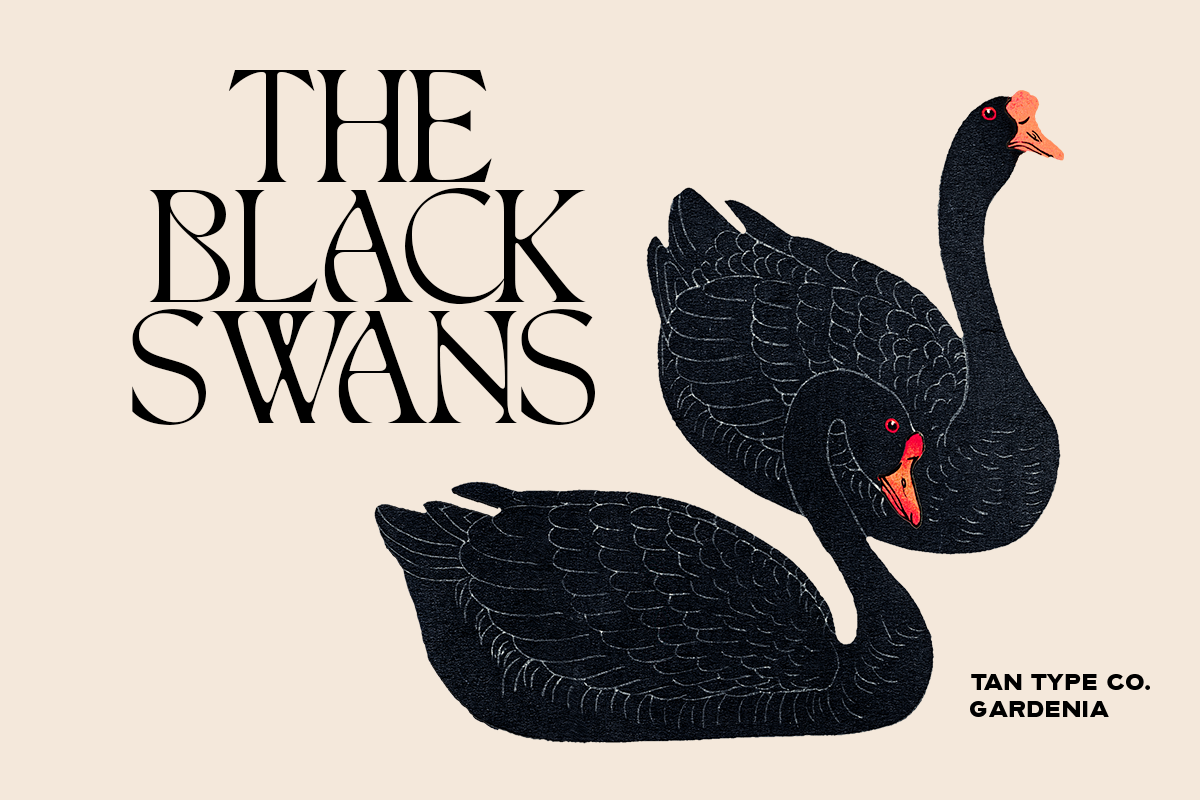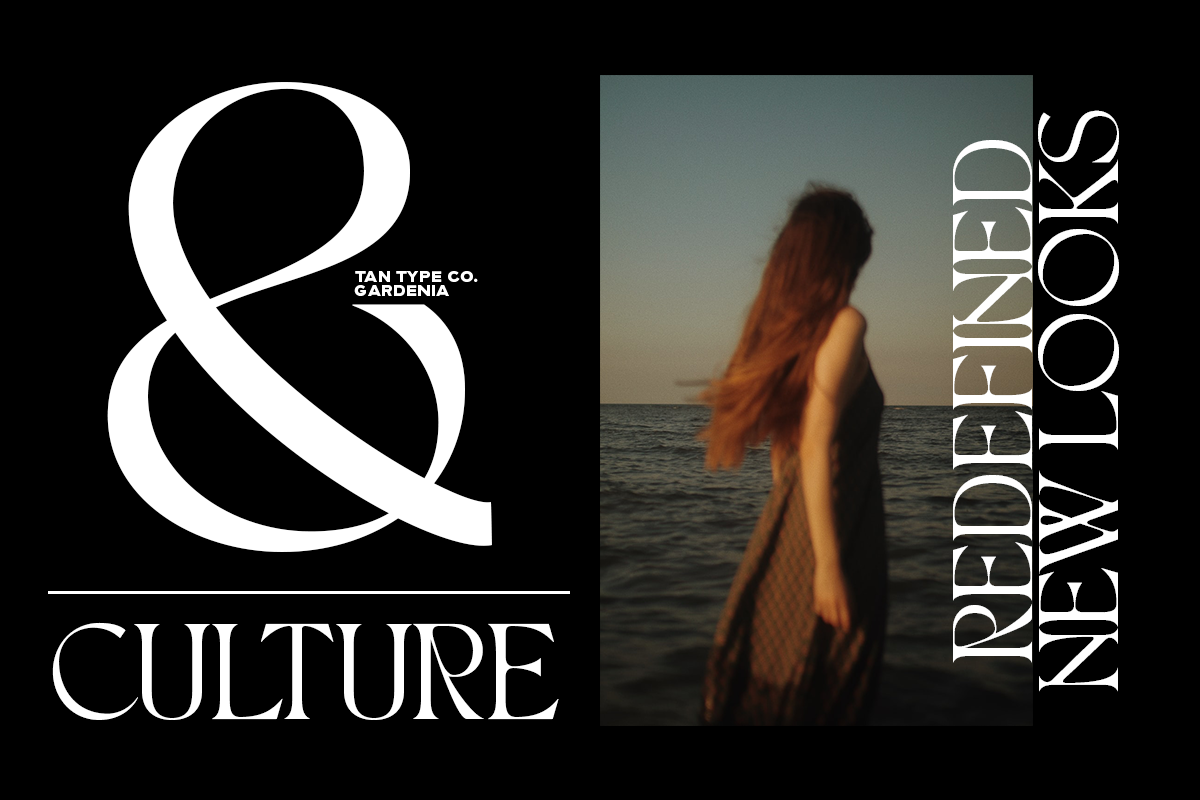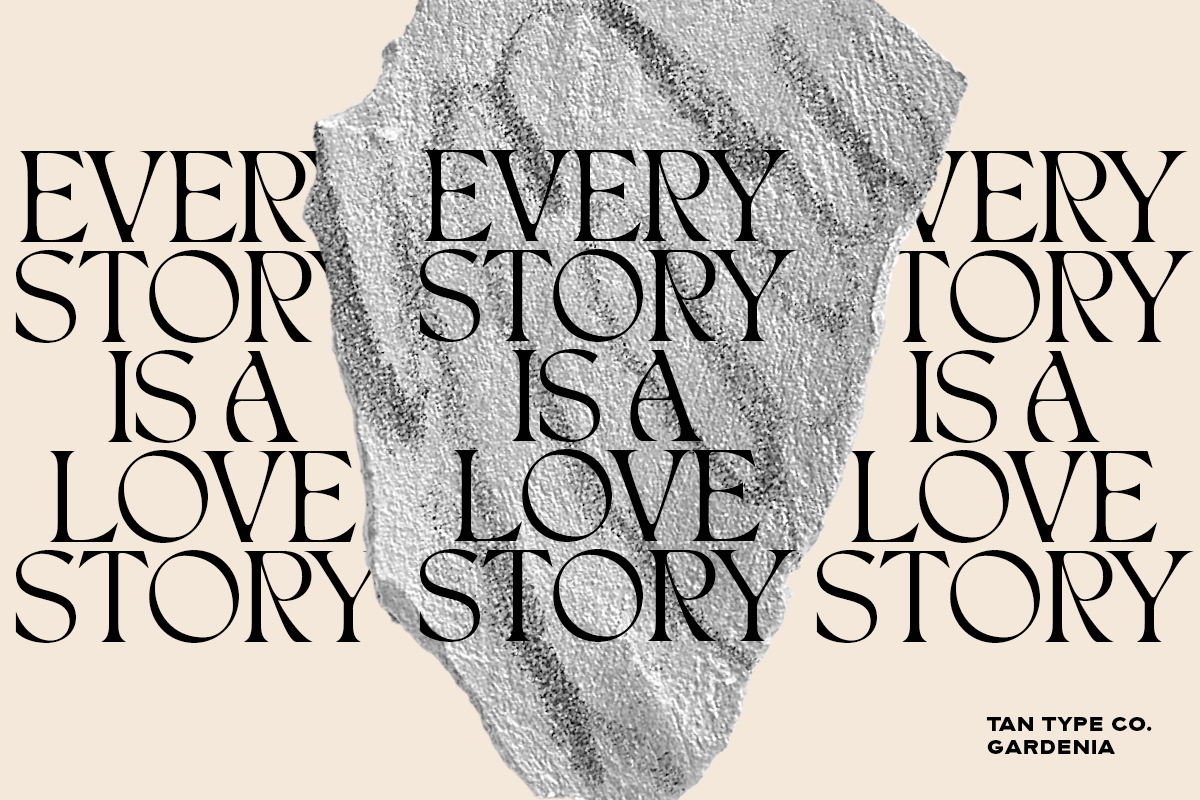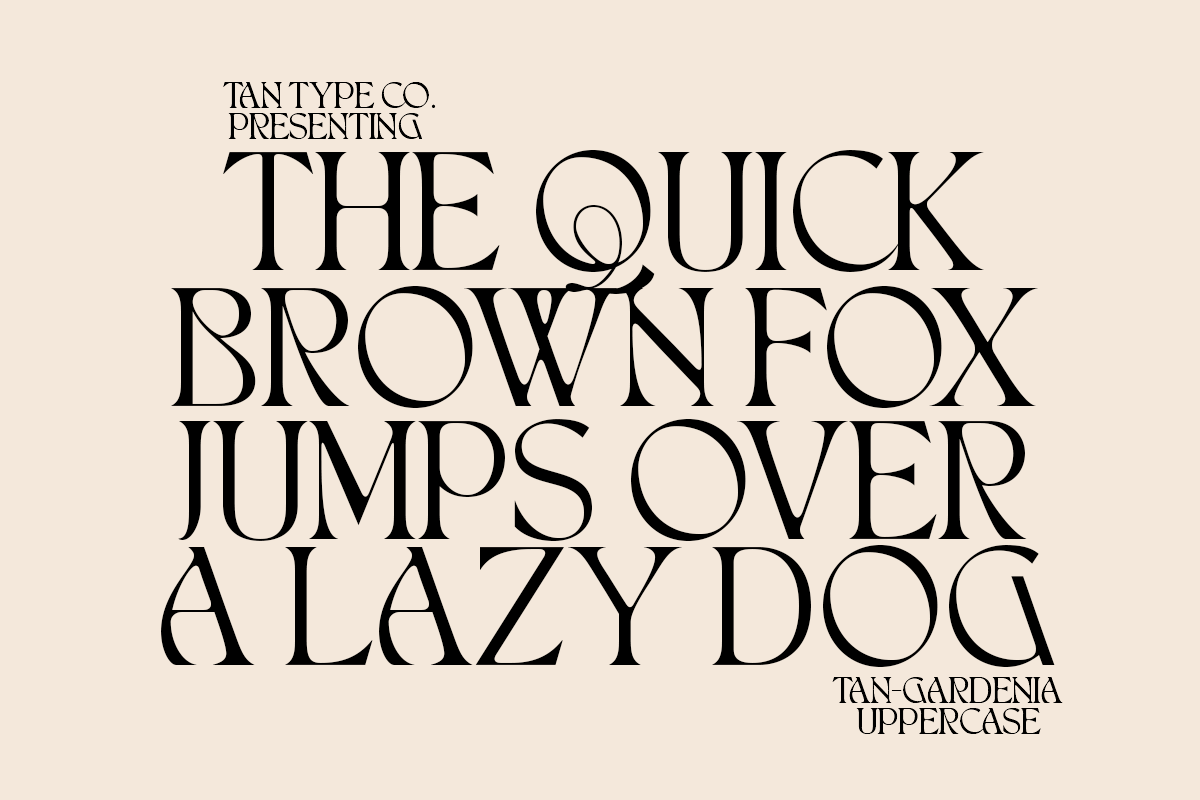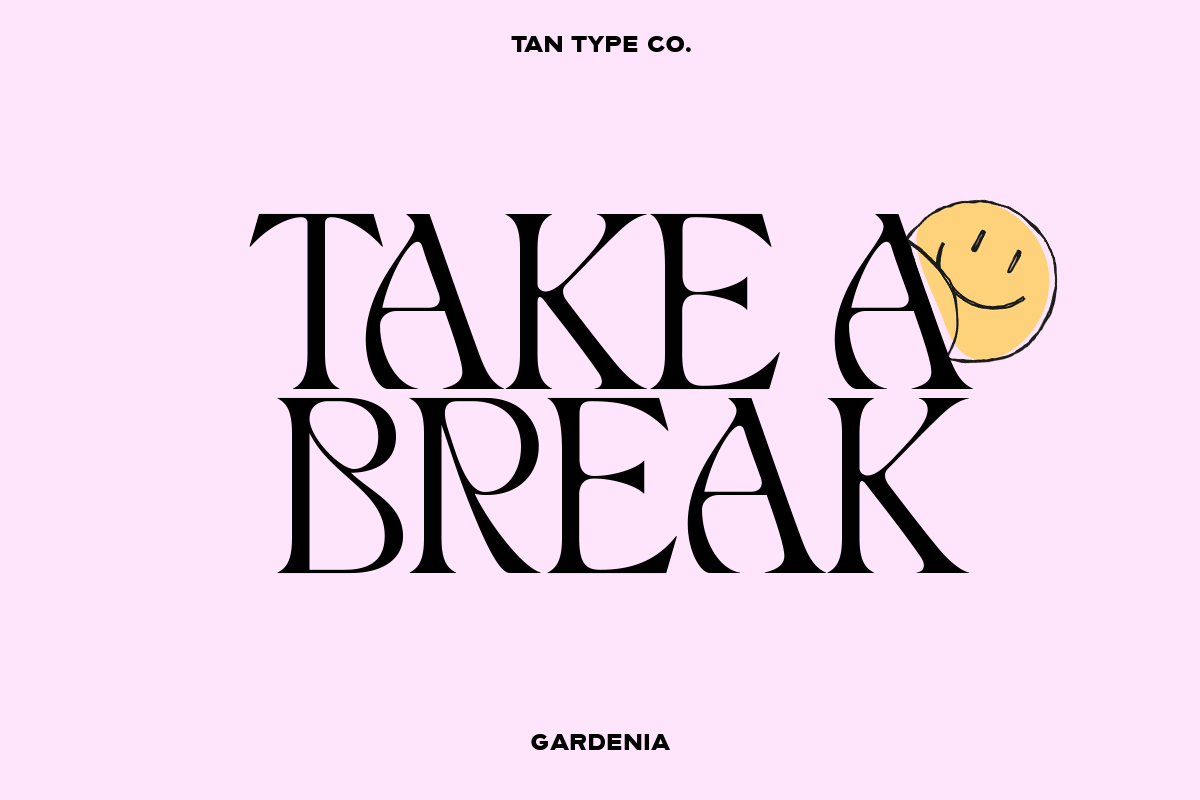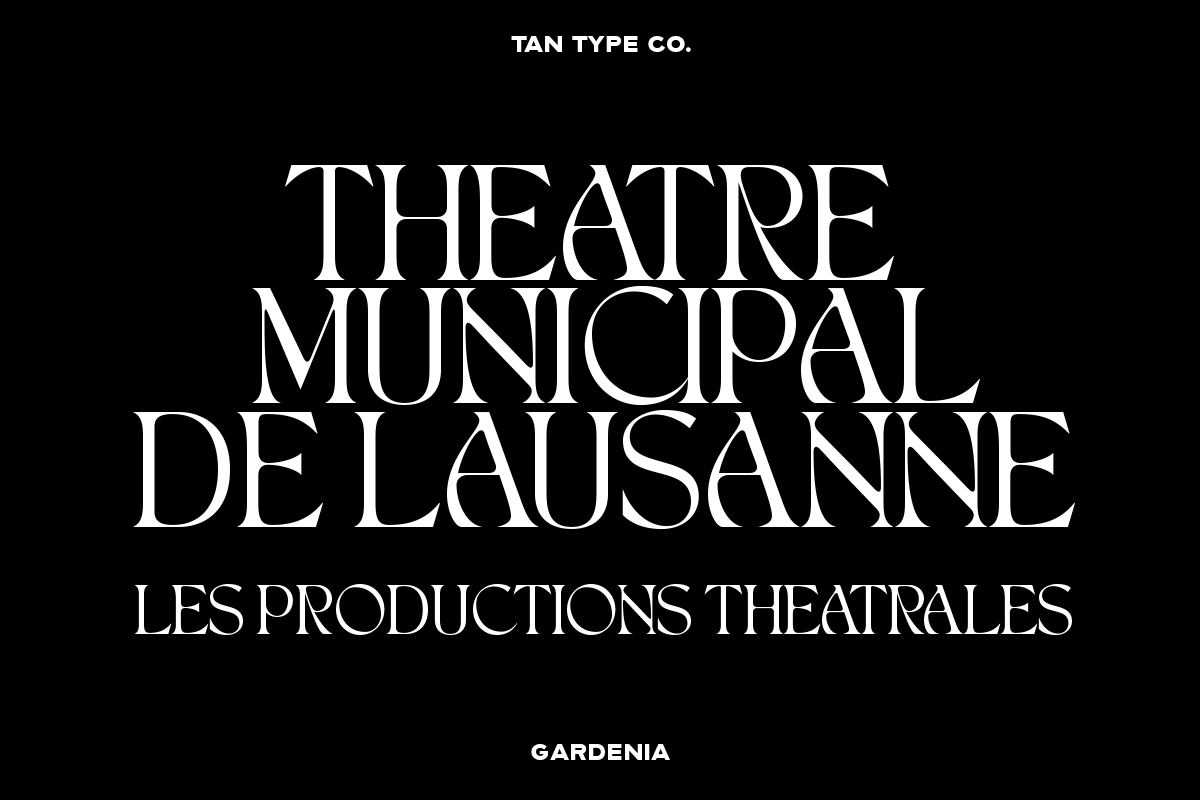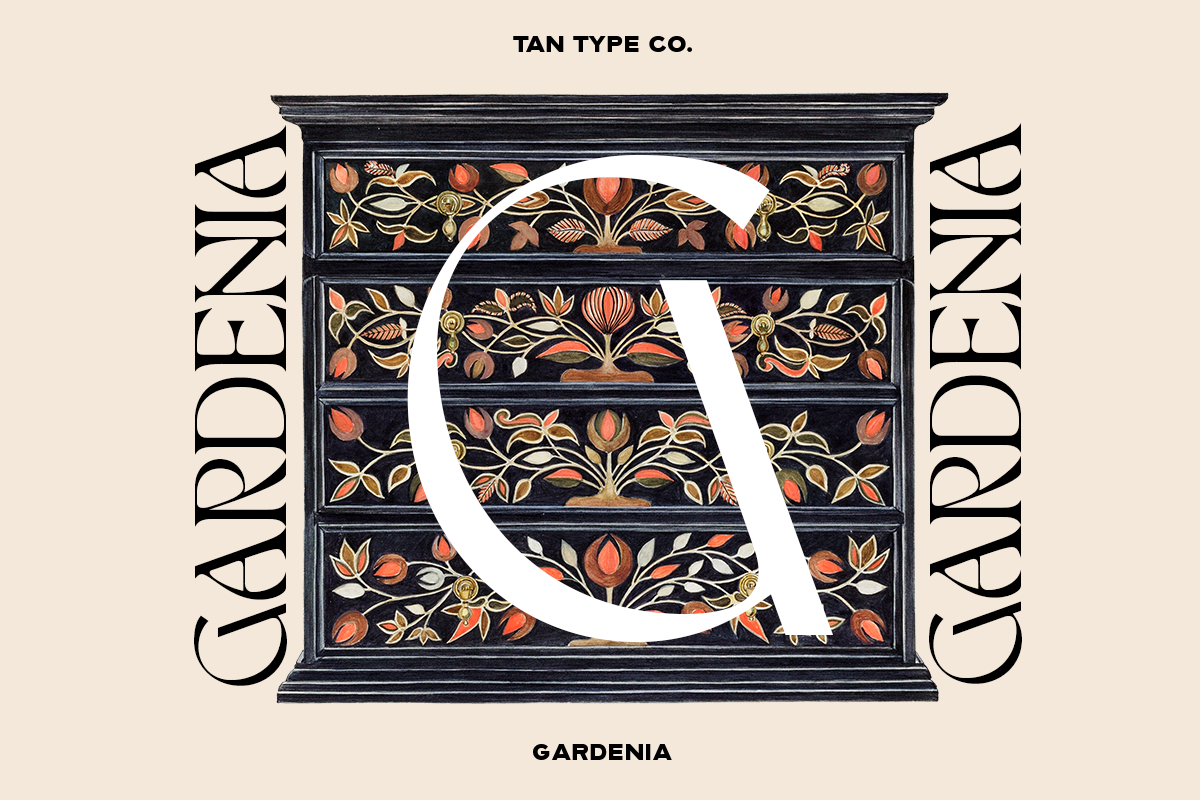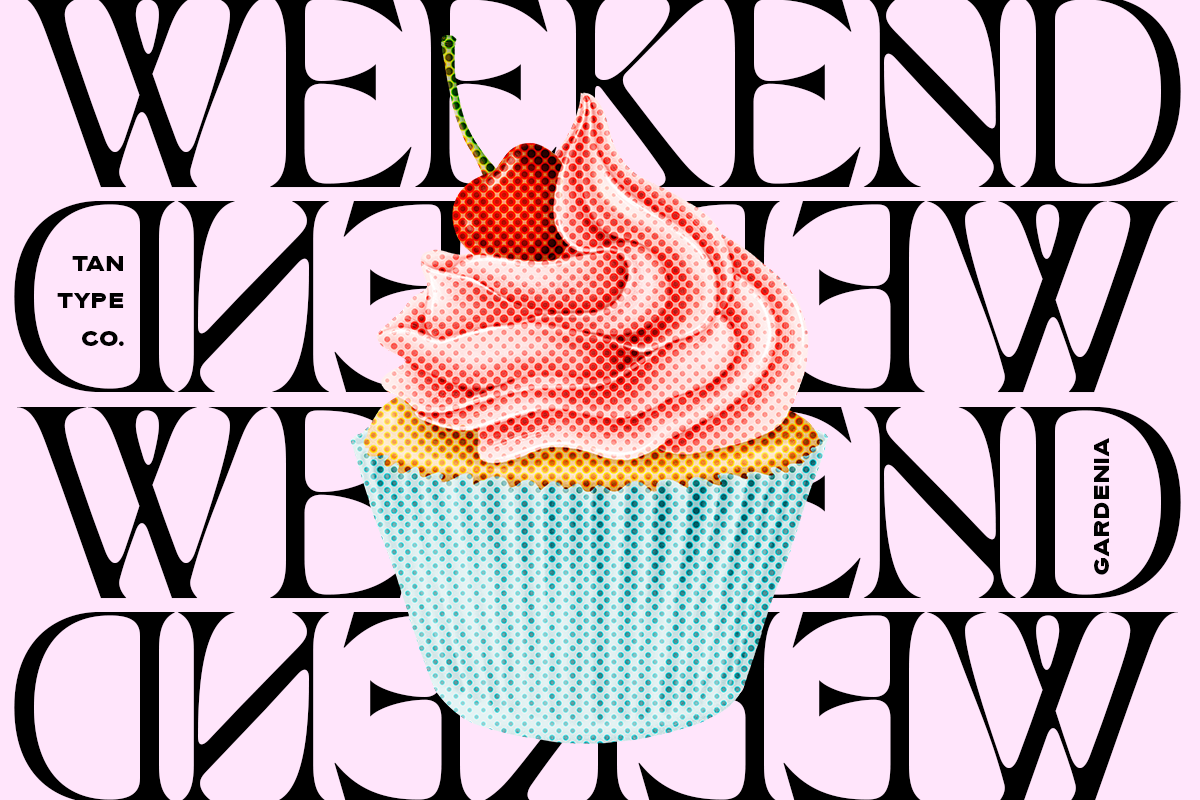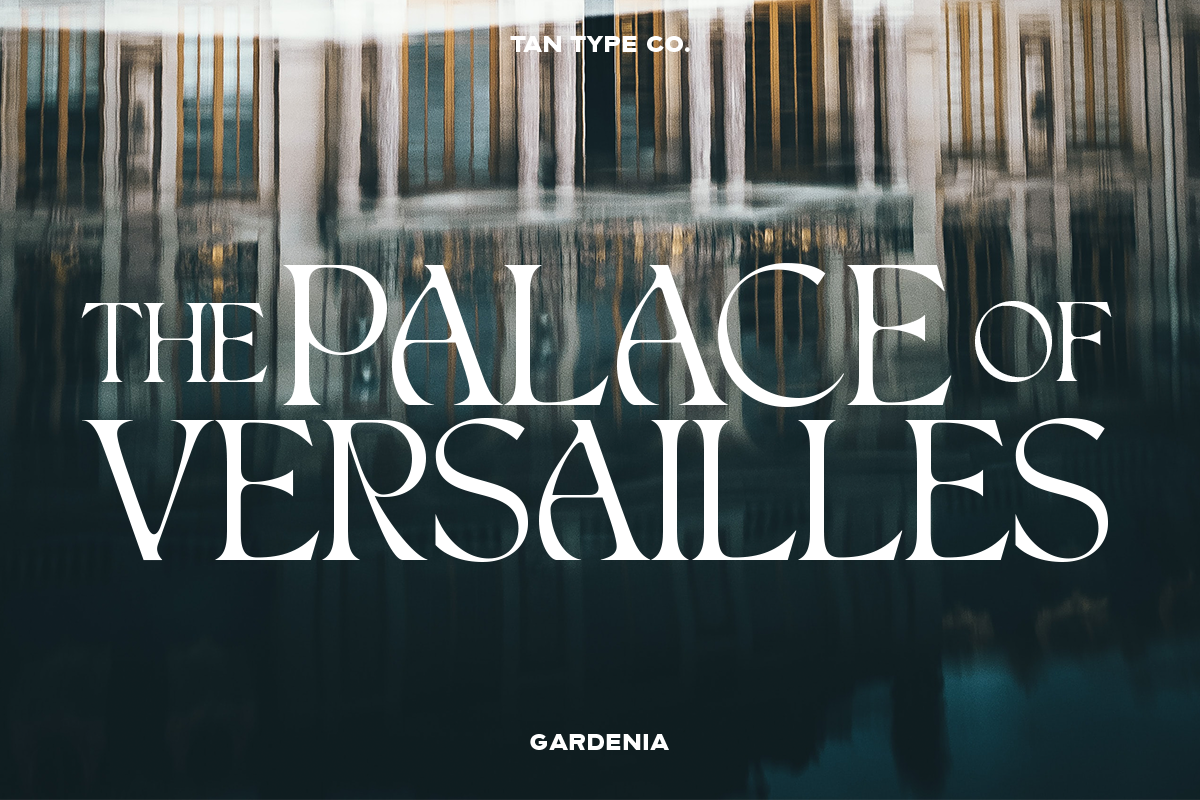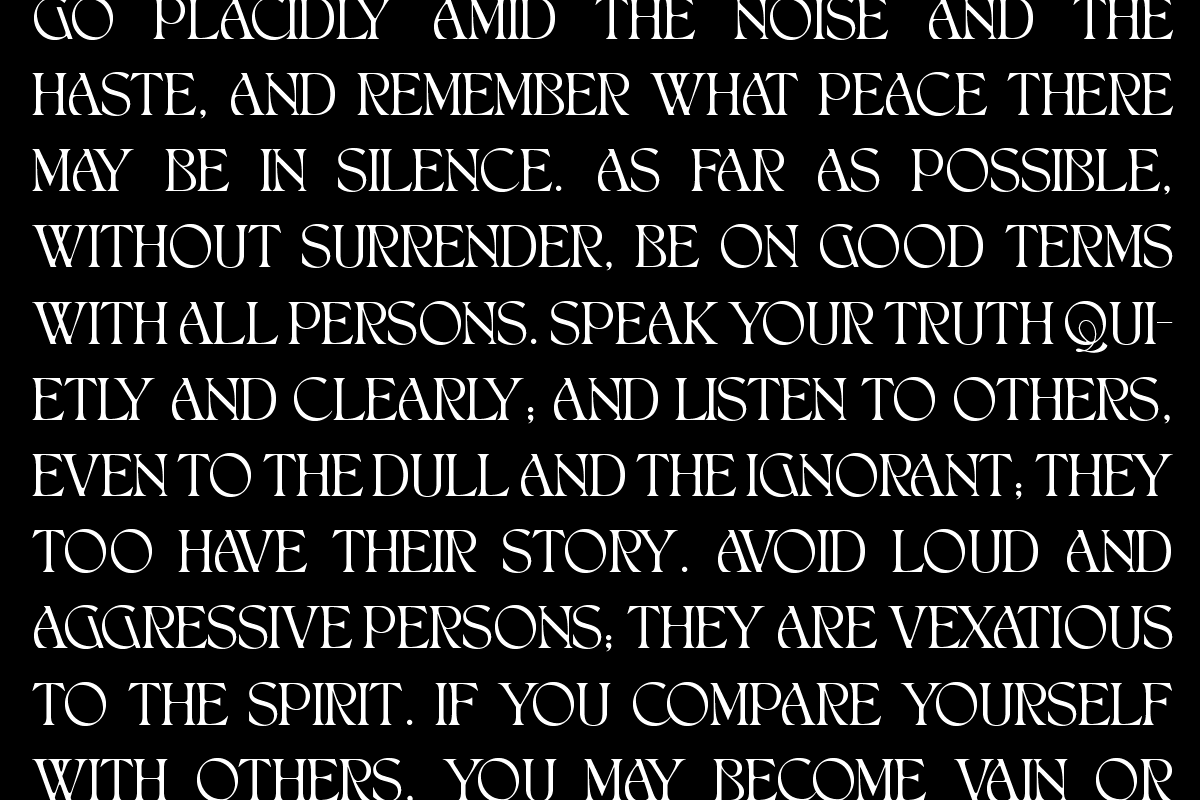
TAN - GARDENIA
TAN-GARDENIA is a display typeface based on classic serif with a contemporary twist. It's fun but still maintains the elegant shapes making it perfect for branding and other of your design needs.